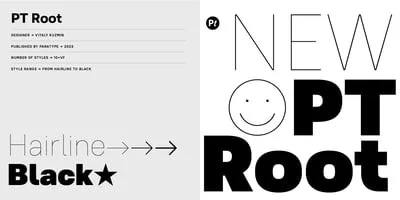
PT Root Font
PT Root Font is perfect for minimalist and modern applications including clean website interfaces, contemporary brand identities, architectural presentations, tech company documentation, modern editorial layouts, sleek mobile applications, progressive corporate materials, and sophisticated design portfolios. This refined typeface brings clarity and contemporary elegance to projects requiring modern sophistication and timeless appeal.
What makes PT Root Font exciting is its perfect balance of geometric precision and humanistic warmth. The font features clean, well-proportioned letterforms with subtle optical adjustments that enhance readability while maintaining a distinctly modern character. Its versatile design philosophy combines technical excellence with aesthetic refinement, making it equally effective for both text and display applications across digital and print media.
The PT Root Font family includes comprehensive weight options from thin to black, each maintaining consistent proportions and spacing for seamless typographic hierarchy. The family encompasses regular and italic styles across all weights, plus condensed variations for space-efficient applications. Extended character sets support multiple languages, making it ideal for international design projects requiring global typography solutions.
Professional designers and forward-thinking companies consistently choose PT Root Font for projects requiring contemporary typography and universal appeal. Whether developing corporate identity systems, creating digital products, or designing editorial materials, this font provides exceptional versatility and modern sophistication. Its unique combination of technical precision and aesthetic elegance makes it an essential tool for design professionals seeking reliable, contemporary typography that communicates clarity, professionalism, and forward-thinking innovation across all communication platforms.